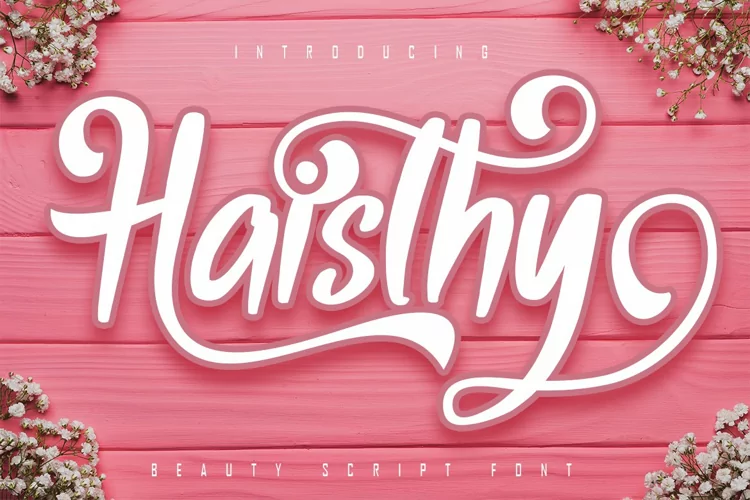
Haisthy Beauty Script
Haisthy
Haisthy is a beautiful font script with a modern and cool style designed with many features more than 20+ alternate encoded PUA and more than 200+ GLYPHS, suitable for promotion, business, company, clothing, wedding and more
• Stylistic alternate for uppercase
• Stylistic alternate for lowercase
• PUA Encoded Characters - Fully accessible without additional design software.
• Basic Latin Language Support (AÀÁÂÃÄÅCÇDÐEÈÉÊËIÌÍÎÏÑOØÒÓÔÕÖUÙÜÚÛWYÝŸÆß )